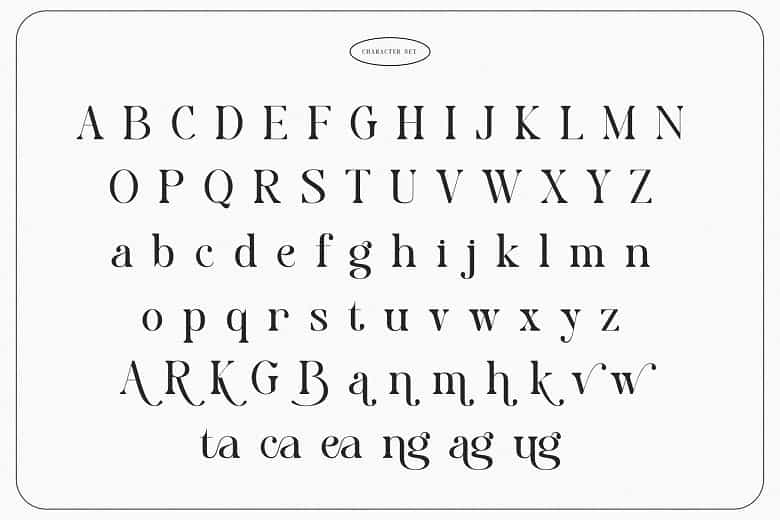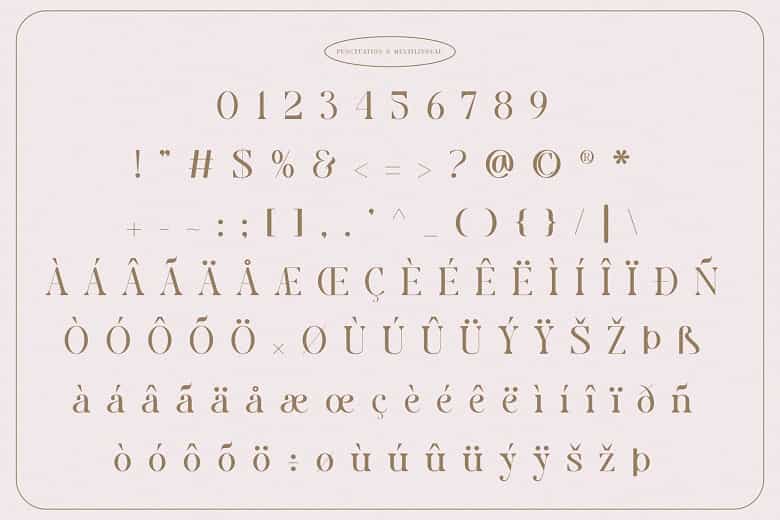
Ginger Brand – A beautiful, professional and clean serif font. Featuring a contemporary and simple design, Ginger Brand delivers elegance and simplicity in your projects like websites, logos, branding, social media posts, wedding invitations, and many more!